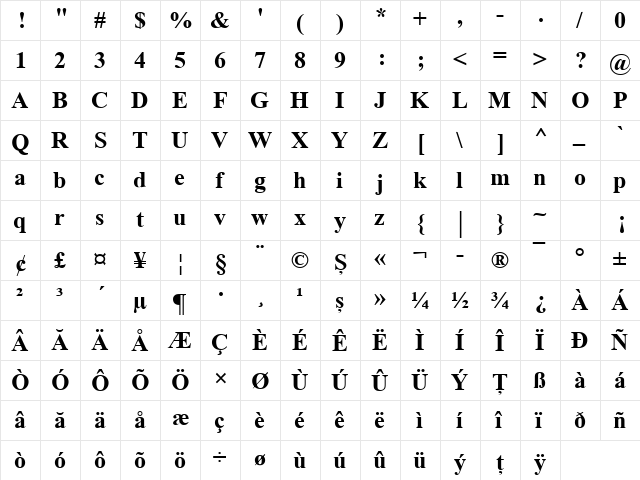
Turn W Bold
Design Context for Turn W Typeface
Turn W is a composed and adaptable typeface that performs quietly and consistently across a wide range of design contexts. Its bold stroke weight gives it real presence on the page.